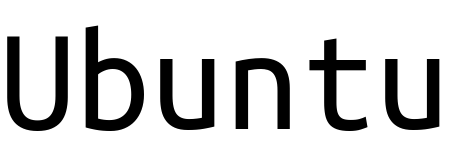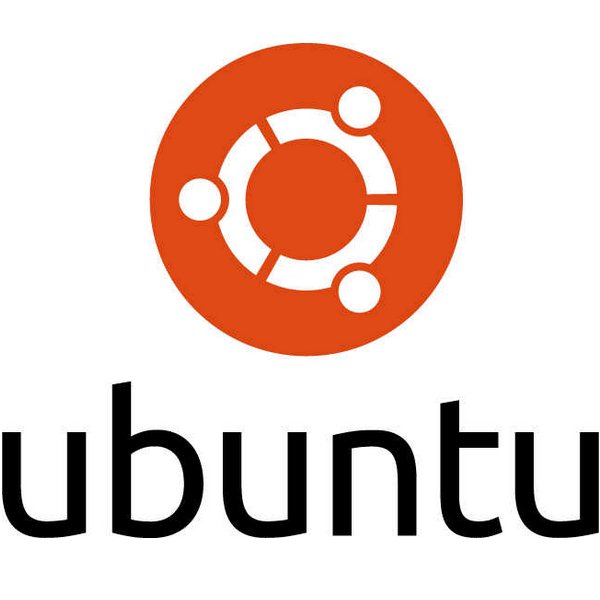
Ubuntu Font
Fonts in UseUbuntu is a popular open-source Linux distribution known for its user-friendly interface and extensive software support. It offers a stable and secure operating system that caters to both beginners and experienced users.
The Ubuntu wordmark uses a custom font, carefully spaced for legibility and aesthetic appeal. You can download the Ubuntu Mono Regular font for free from the Fonts Used Section.